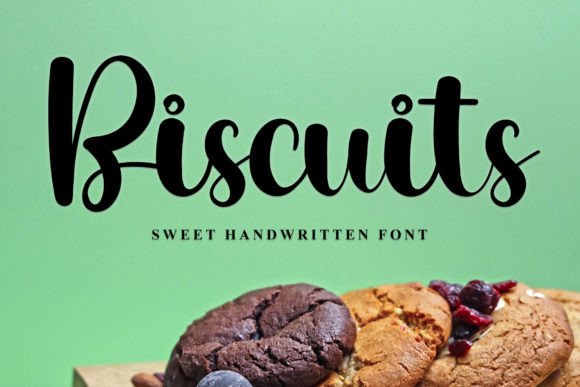
The Biscuits Font: A Timeless, Handwritten Treasure
I’ll never forget the moment I stumbled upon the Biscuits font. I was working on a branding project for a boutique bakery, and I was struggling to find the perfect font to capture the warmth and elegance of their brand. As I scrolled through my font library, Biscuits caught my eye, and I knew I had found “the one.” Its beautiful, handwritten curves and elegant touch instantly won me over, and I couldn’t wait to dive in and explore its features.
So, what makes Biscuits so special? Let’s take a closer look.
- ✨ Elegant and sophisticated design that’s perfect for high-end branding projects
- 💫 Beautifully crafted to add a touch of warmth and personality to any design
- 🎨 Versatile and adaptable to various design styles and industries
While Biscuits is an amazing font, there are a few things to keep in mind:
- ⚠️ Some users may find the font a bit too ornate for very casual or playful designs
- 🤔 Limited availability of certain OpenType features, such as ligatures or stylistic alternates
The Story Behind Biscuits
Biscuits was designed by a talented typographer who wanted to create a font that captured the warmth and elegance of handwritten script. With its beautiful curves and sophisticated feel, Biscuits has become a favorite among designers and crafters alike.
Q: What is the Biscuits font best suited for?
A: Biscuits is perfect for high-end branding projects, luxury packaging, and elegant stationery.
Q: Is Biscuits a difficult font to read?
A: No, Biscuits is highly legible, even at small font sizes, making it perfect for body text or captions.